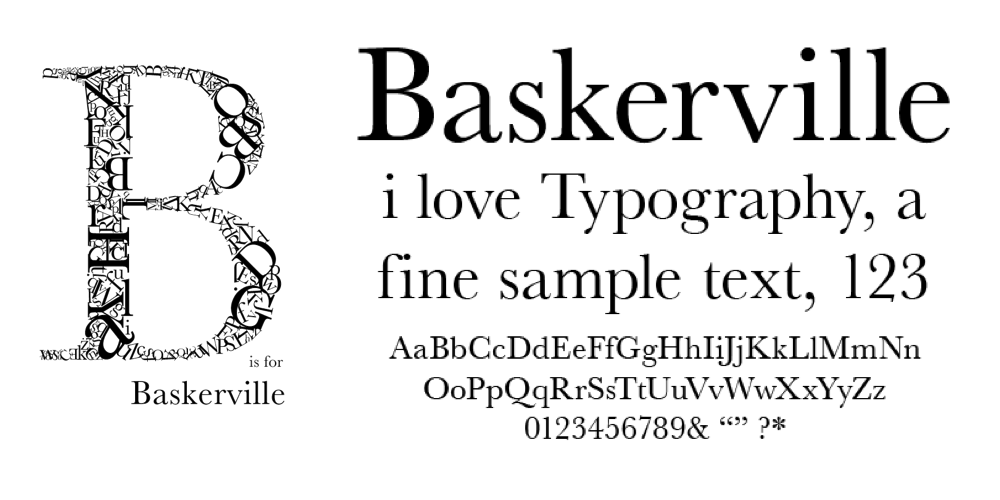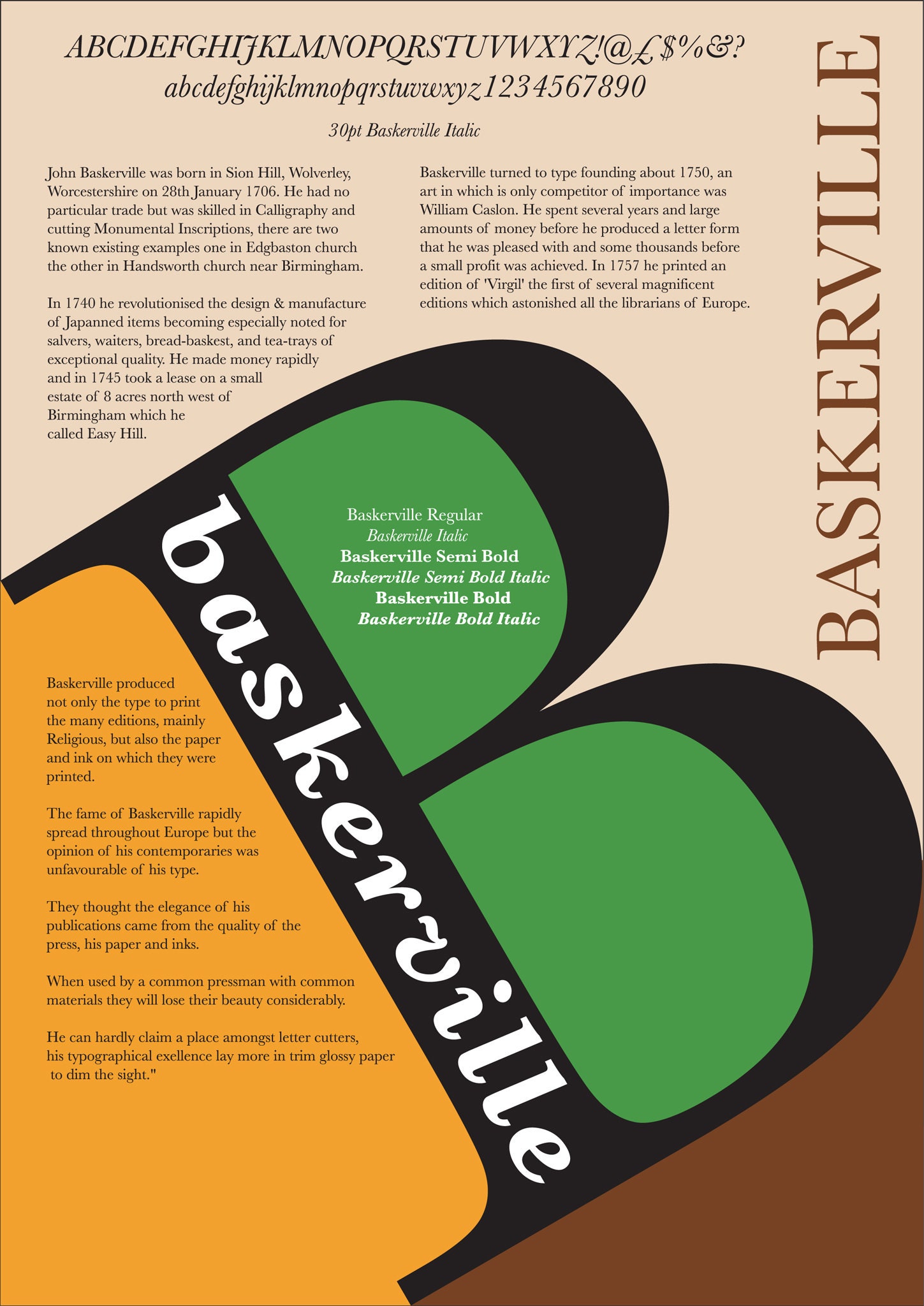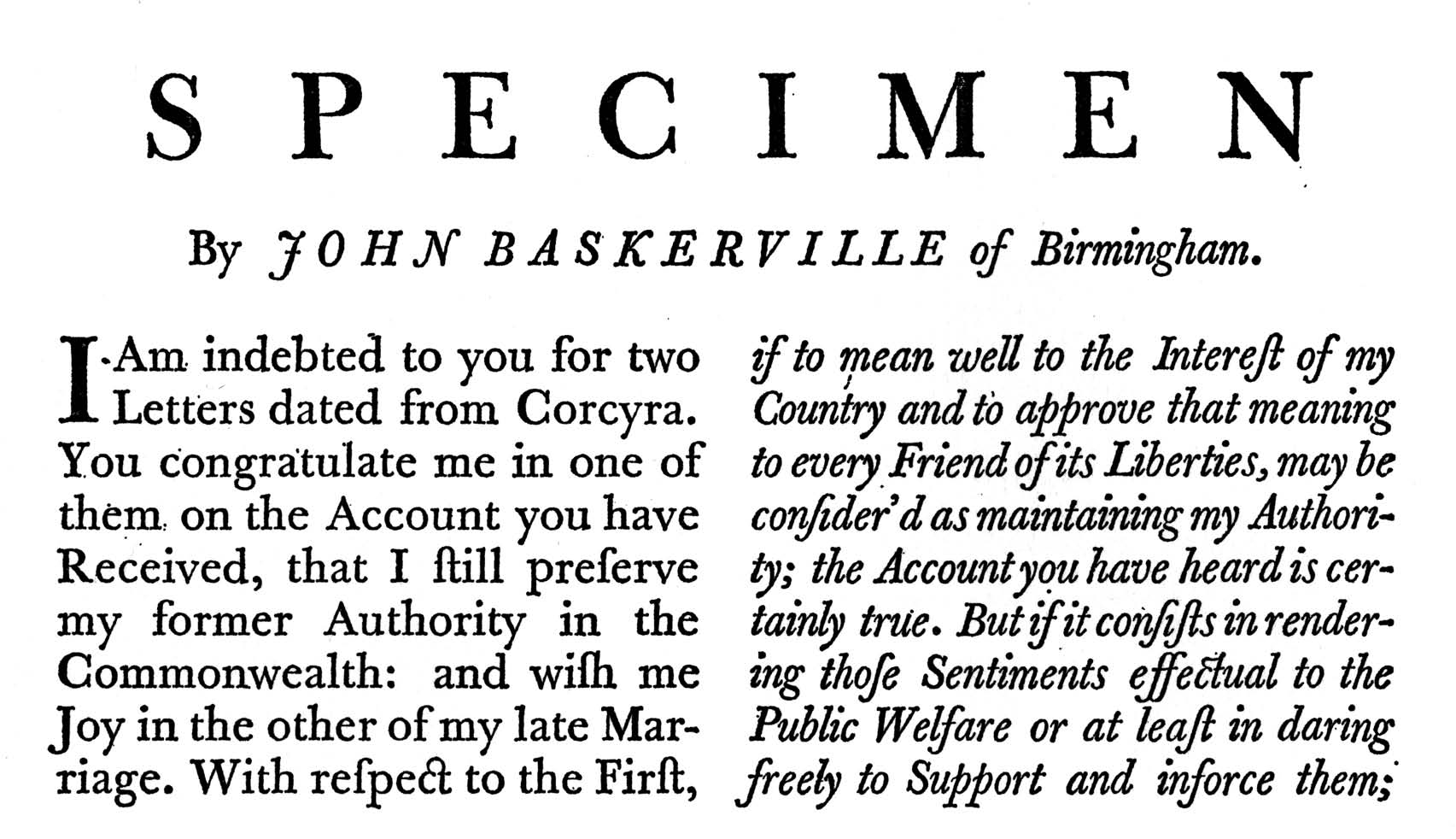
History Of Baskerville Font
History Of Baskerville Font - Web in john baskerville.printer and creator of a typeface of great distinction bearing his name, whose works are among the finest examples of the art of printing. Web baskerville, designed in 1754, is most known for its crisp edges, high contrast and generous proportions. 8, 1775, birmingham, warwickshire) english printer and creator of a typeface of great distinction bearing his name, whose works. Web the font dates back to the 1730s, when an english businessman named john baskerville first began working on engravings for tombstones using a style of writing that would later resemble the. 28, 1706, wolverley, worcestershire, eng.—died jan. [1] [2] [3] [4] baskerville is classified as a transitional. Web john baskerville (born jan.
28, 1706, wolverley, worcestershire, eng.—died jan. Web john baskerville (born jan. Web the font dates back to the 1730s, when an english businessman named john baskerville first began working on engravings for tombstones using a style of writing that would later resemble the. 8, 1775, birmingham, warwickshire) english printer and creator of a typeface of great distinction bearing his name, whose works. [1] [2] [3] [4] baskerville is classified as a transitional. Web baskerville, designed in 1754, is most known for its crisp edges, high contrast and generous proportions. Web in john baskerville.printer and creator of a typeface of great distinction bearing his name, whose works are among the finest examples of the art of printing.
Web the font dates back to the 1730s, when an english businessman named john baskerville first began working on engravings for tombstones using a style of writing that would later resemble the. 28, 1706, wolverley, worcestershire, eng.—died jan. Web john baskerville (born jan. Web baskerville, designed in 1754, is most known for its crisp edges, high contrast and generous proportions. 8, 1775, birmingham, warwickshire) english printer and creator of a typeface of great distinction bearing his name, whose works. Web in john baskerville.printer and creator of a typeface of great distinction bearing his name, whose works are among the finest examples of the art of printing. [1] [2] [3] [4] baskerville is classified as a transitional.
John Baskerville
Web the font dates back to the 1730s, when an english businessman named john baskerville first began working on engravings for tombstones using a style of writing that would later resemble the. 28, 1706, wolverley, worcestershire, eng.—died jan. Web in john baskerville.printer and creator of a typeface of great distinction bearing his name, whose works are among the finest examples.
This is my Baskerville Font exploration. Baskerville is a serif
8, 1775, birmingham, warwickshire) english printer and creator of a typeface of great distinction bearing his name, whose works. [1] [2] [3] [4] baskerville is classified as a transitional. Web john baskerville (born jan. 28, 1706, wolverley, worcestershire, eng.—died jan. Web baskerville, designed in 1754, is most known for its crisp edges, high contrast and generous proportions.
Web in john baskerville.printer and creator of a typeface of great distinction bearing his name, whose works are among the finest examples of the art of printing. 28, 1706, wolverley, worcestershire, eng.—died jan. Web the font dates back to the 1730s, when an english businessman named john baskerville first began working on engravings for tombstones using a style of writing.
8, 1775, birmingham, warwickshire) english printer and creator of a typeface of great distinction bearing his name, whose works. Web the font dates back to the 1730s, when an english businessman named john baskerville first began working on engravings for tombstones using a style of writing that would later resemble the. 28, 1706, wolverley, worcestershire, eng.—died jan. Web john baskerville.
Web baskerville, designed in 1754, is most known for its crisp edges, high contrast and generous proportions. Web john baskerville (born jan. Web the font dates back to the 1730s, when an english businessman named john baskerville first began working on engravings for tombstones using a style of writing that would later resemble the. 8, 1775, birmingham, warwickshire) english printer.
Web john baskerville (born jan. Web the font dates back to the 1730s, when an english businessman named john baskerville first began working on engravings for tombstones using a style of writing that would later resemble the. 28, 1706, wolverley, worcestershire, eng.—died jan. 8, 1775, birmingham, warwickshire) english printer and creator of a typeface of great distinction bearing his name,.
Web in john baskerville.printer and creator of a typeface of great distinction bearing his name, whose works are among the finest examples of the art of printing. [1] [2] [3] [4] baskerville is classified as a transitional. Web the font dates back to the 1730s, when an english businessman named john baskerville first began working on engravings for tombstones using.
[1] [2] [3] [4] baskerville is classified as a transitional. Web baskerville, designed in 1754, is most known for its crisp edges, high contrast and generous proportions. 28, 1706, wolverley, worcestershire, eng.—died jan. Web the font dates back to the 1730s, when an english businessman named john baskerville first began working on engravings for tombstones using a style of writing.
Web The Font Dates Back To The 1730S, When An English Businessman Named John Baskerville First Began Working On Engravings For Tombstones Using A Style Of Writing That Would Later Resemble The.
Web baskerville, designed in 1754, is most known for its crisp edges, high contrast and generous proportions.